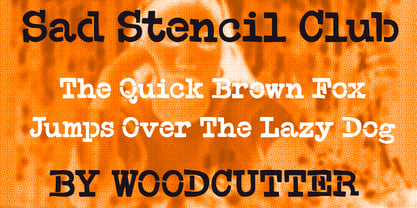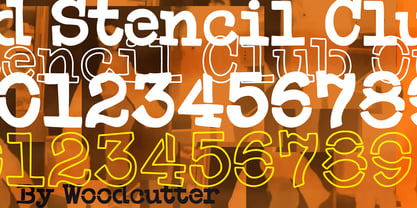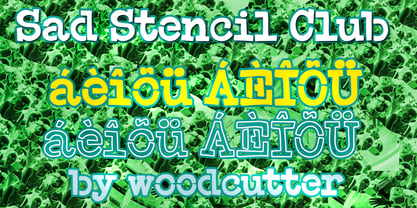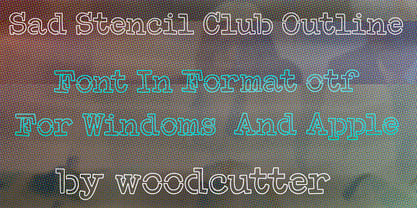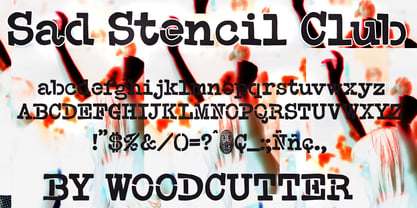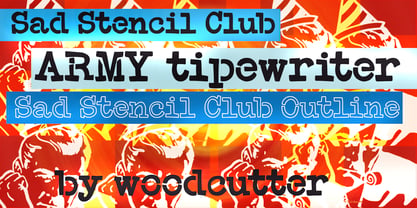
Sad Stencil Club
by Woodcutter
Sad Stencil Club is a typeface family that merges the mechanical nostalgia of typewriters with the raw functionality of industrial stencil design. Created in both uppercase and lowercase with full accent support, this font balances structural precision with subtle emotional wear, resulting in a visual identity that feels restrained, direct, and full of character.
Its construction is rooted in classic monospaced letterforms, carefully adapted to function as a stencil-ready system. Strategic cuts within each character ensure physical continuity while introducing a fragmented, slightly melancholic aesthetic. This technical necessity becomes a defining expressive feature.
The main version, Sad Stencil Club, features solid black letters—bold, functional, and perfectly suited for both digital and physical applications. Its appearance evokes typed documents, urban signage, and straightforward messaging, carrying a quiet, introspective tone.
In contrast, Sad Stencil Club Outline offers a lighter interpretation, presenting characters as outlines only. This version maintains the stencil structure while providing greater flexibility for more open, experimental, or visually delicate compositions.
Sad Stencil Club is ideal for posters, street art, editorial design, alternative branding, and projects seeking an honest, technical, and emotionally restrained aesthetic.